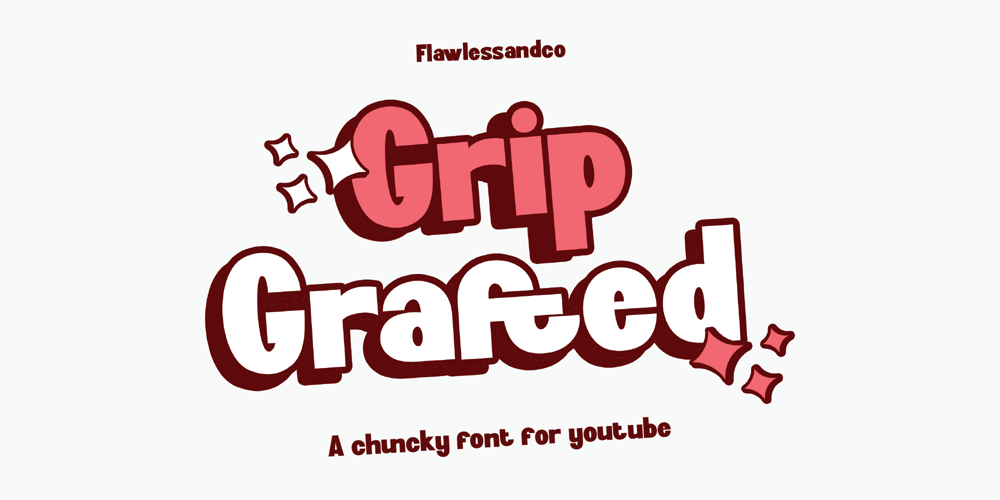
Grip Grafted Font Family was designed by Achmad Yani and published by Flawlessandco. Grip Grafted contains 1 styles and family package options. Grip Grafted – Thumbnails Font, Tittle Font, Subtitle Font, Sans Serif Font, Modern Font, Branding Font, Logo Font, Canva Font, Cricut Font, Cursive Font, Procreate FontIntroducing “Grip Grafted” a chunky font for youtube. Make a statement with “Grip Grafted,” a bold and chunky font designed to command attention on YouTube. With its strong presence and distinctive style, Grip Grafted ensures that your video titles and thumbnails stand out in the crowded digital landscape, enticing viewers to click and engage.Keywords: Thumbnails Font, Sans Serif FontThere’s some connected letters and some alternates that suitable for any graphic designs such as branding materials, t-shirt, print, business cards, logo, poster, t-shirt, photography, quotes .etcThis font support for some multilingual. Also contains uppercase A-Z and lowercase a-z, alternate character, numbers 0-9, and some punctuation.If you need help, just write me! Thanks so much for checking out my shop!